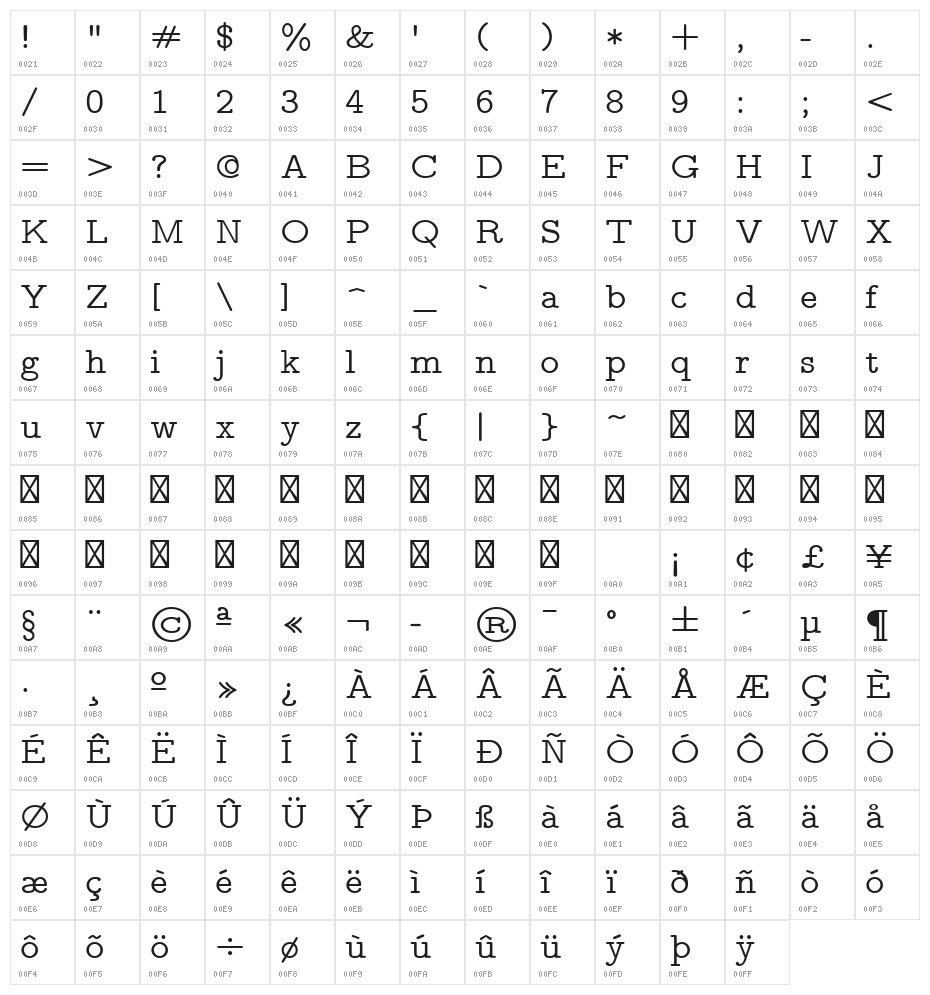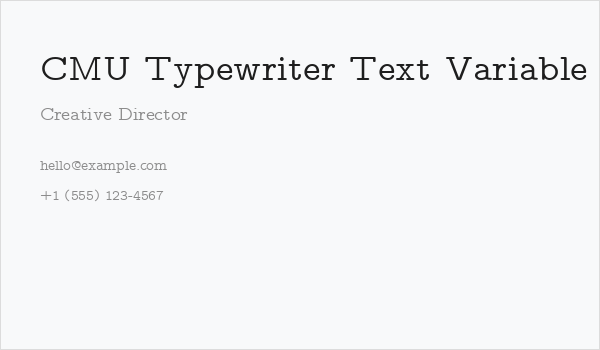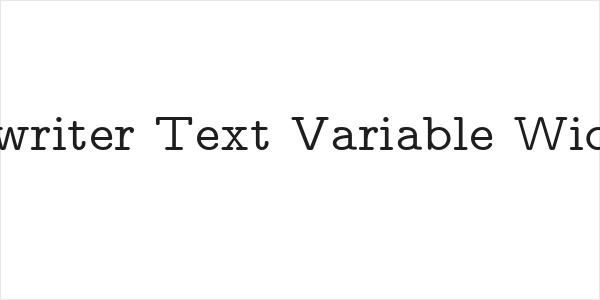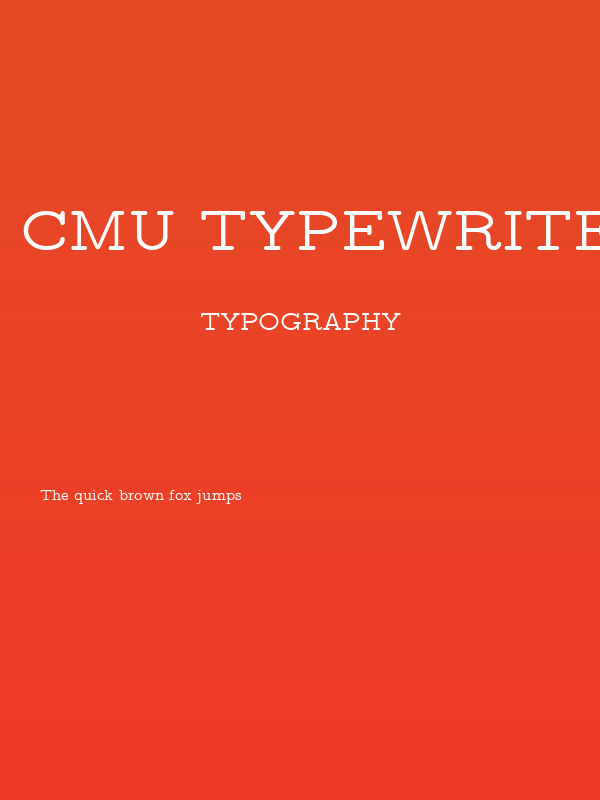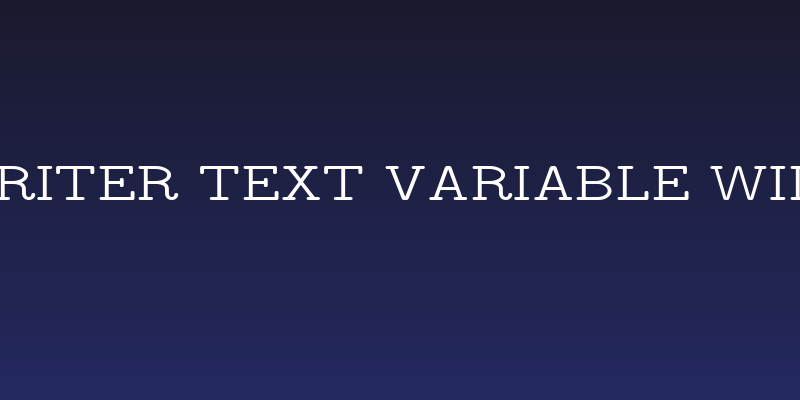
CMU Typewriter Text Variable Width Medium Font
CMU Typewriter Text Variable Width Medium Description
This typewriter-style font features a classic and timeless design, reminiscent of traditional typewriter text. It combines a monospaced feel with variable width, offering a unique blend of uniformity and flexibility. The characters are well-defined with a medium weight, providing a clear and legible appearance. The uppercase letters are bold and prominent, while the lowercase letters maintain a consistent style with slightly rounded edges. Numbers and special characters are crafted with precision, ensuring readability across various applications. The font's overall aesthetic is both vintage and functional, making it suitable for a range of design projects.
| Use Case | Body text, Typewriter emulation, Retro designs |
| Proposed Projects | Ideal for projects requiring a vintage or retro feel, such as typewriter-themed designs, retro posters, or classic book covers. |